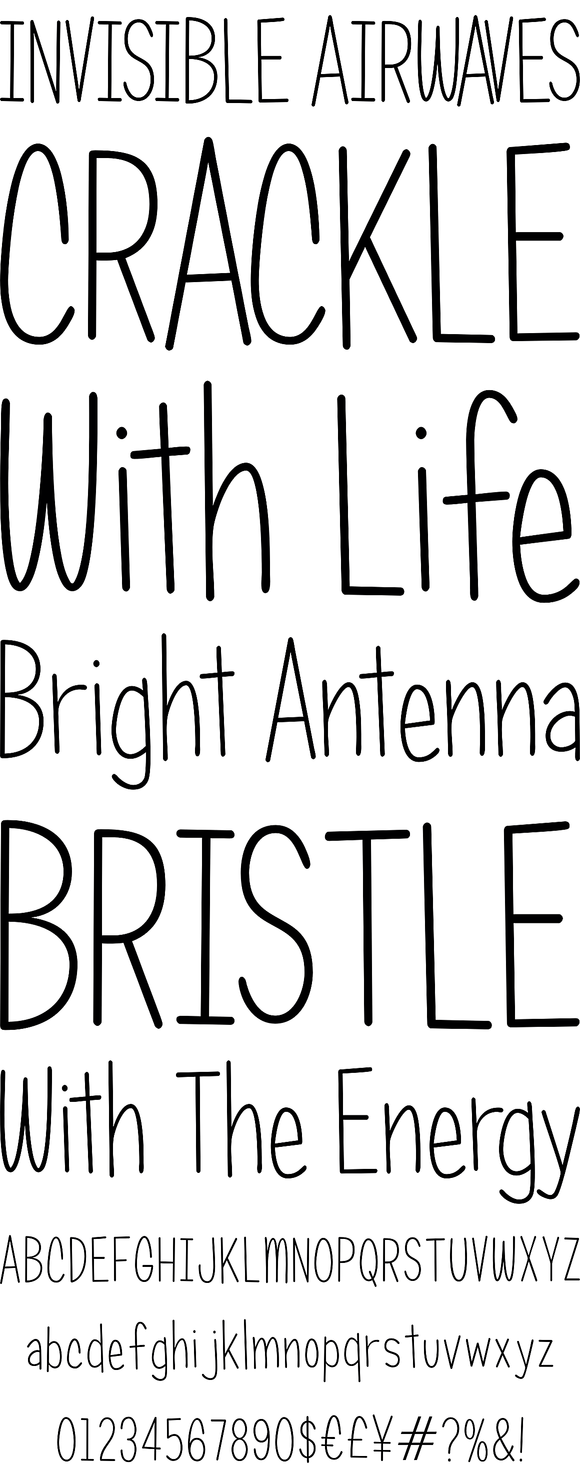
Candy Round
Foundry: Breaking The Norm
Candy Round is part of the classic Candy family which is inspired by vintage confectionary packaging yet yields a modern look and is a perfect display typeface for any use, even at small sizes.